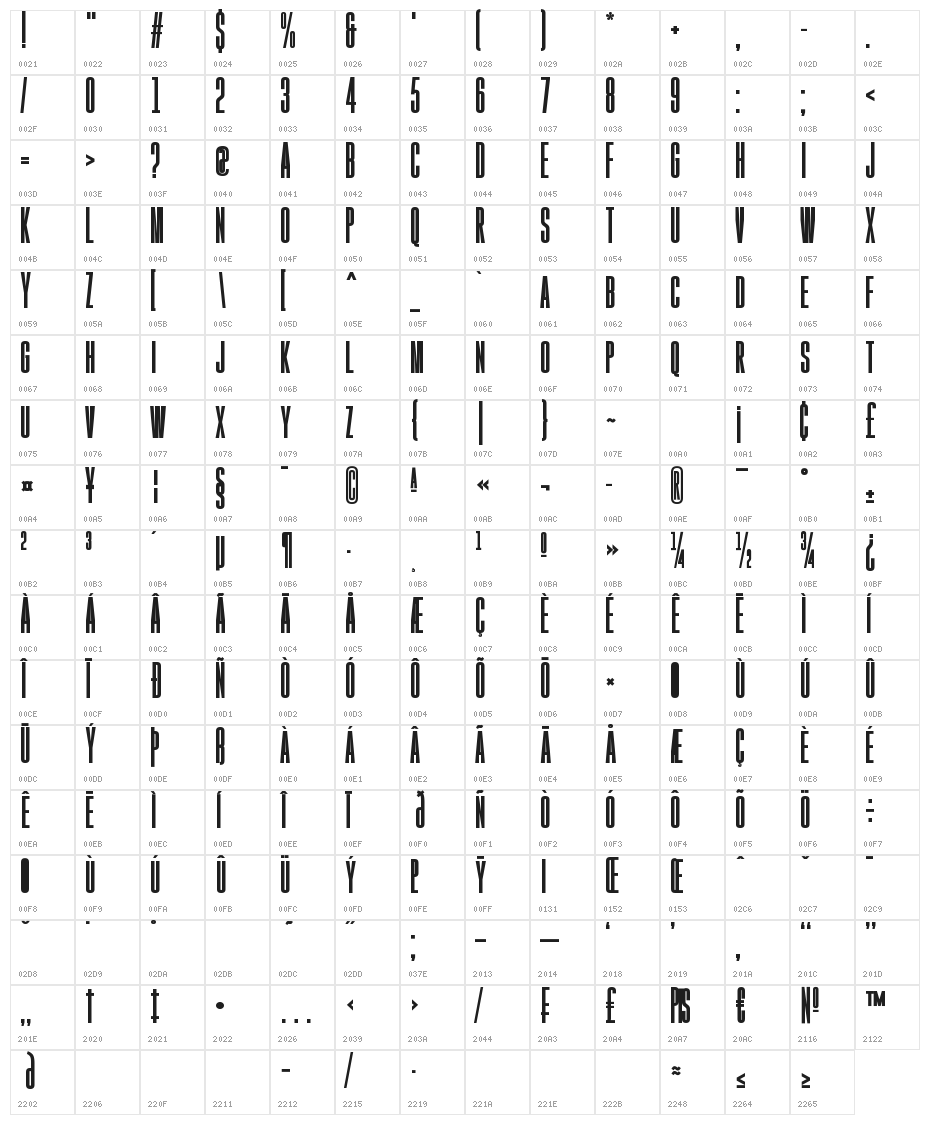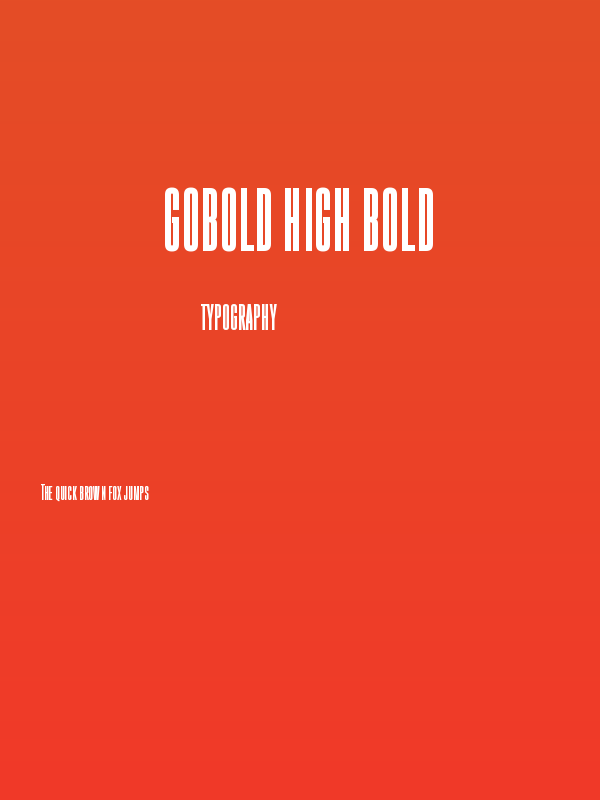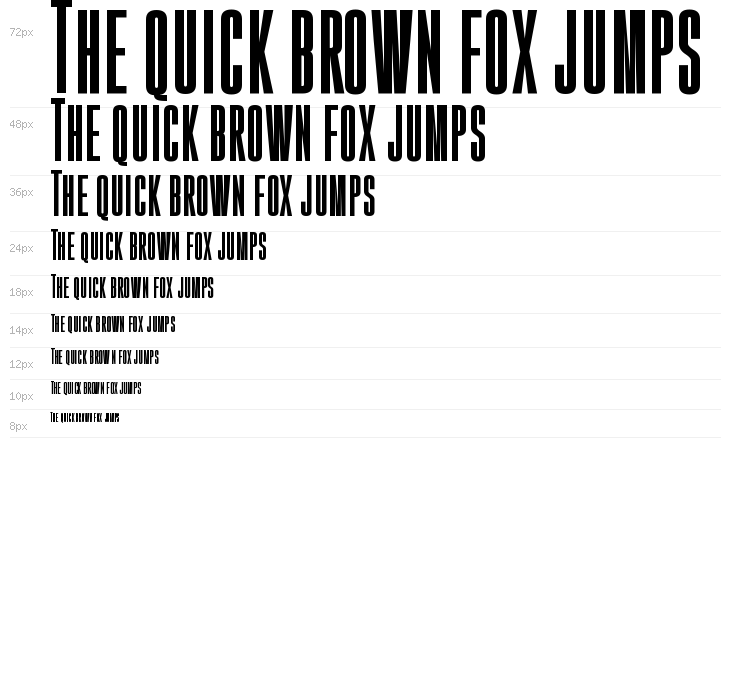
Gobold High Bold Font
Gobold High Bold Description
This font features a bold and striking design with tall, narrow characters that create a strong visual impact. The uppercase and lowercase letters maintain a consistent height, contributing to a uniform appearance. The numerals and special characters are designed to match the boldness of the alphabet, ensuring a cohesive look across all text elements. The font's vertical emphasis and condensed width make it ideal for creating attention-grabbing headlines and titles. Its modern and assertive style is perfect for projects that require a strong and confident typographic presence.
Proposed ProjectsIdeal for posters, advertisements, branding, and editorial design where a strong visual impact is needed.